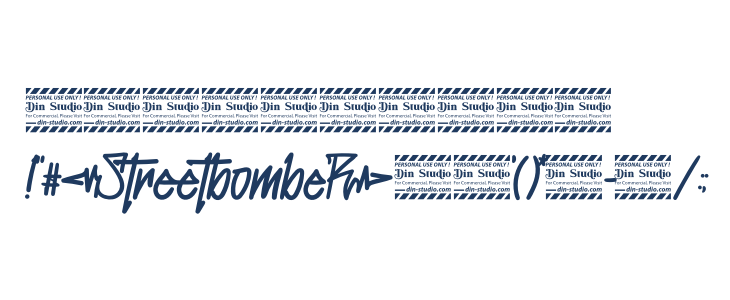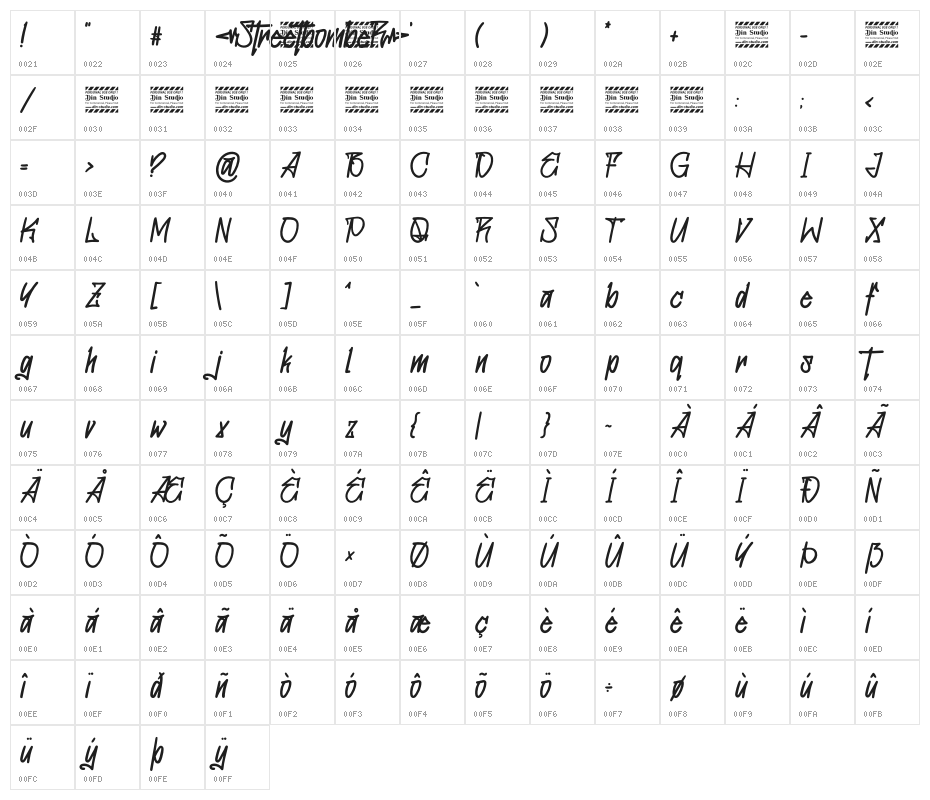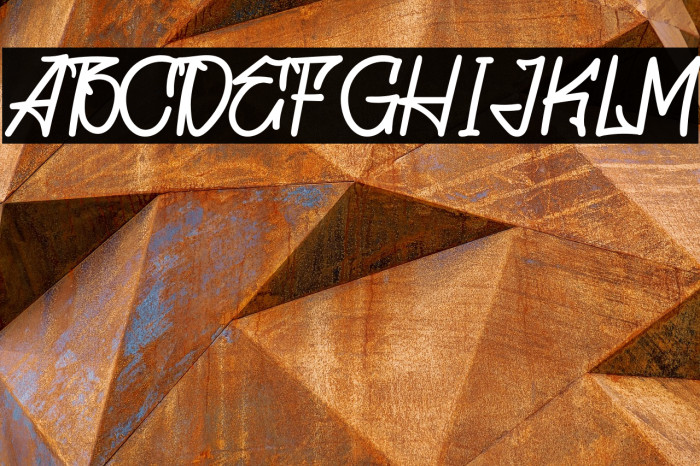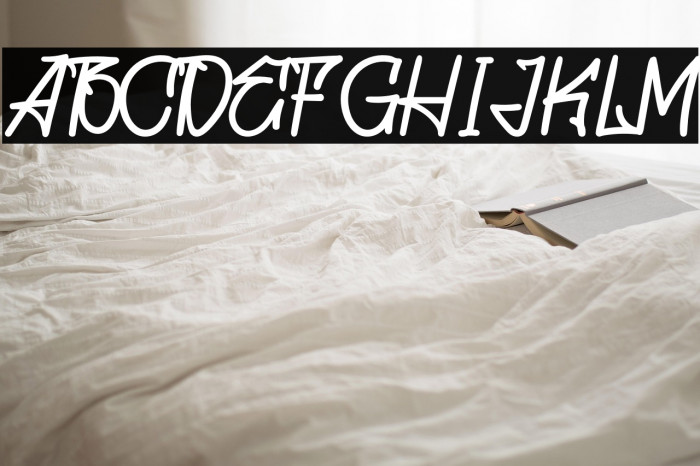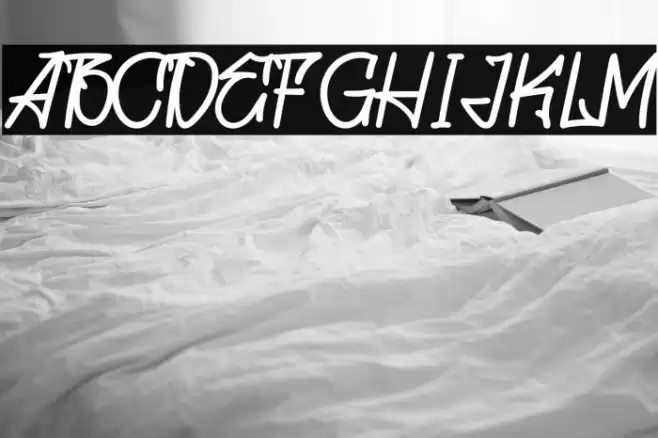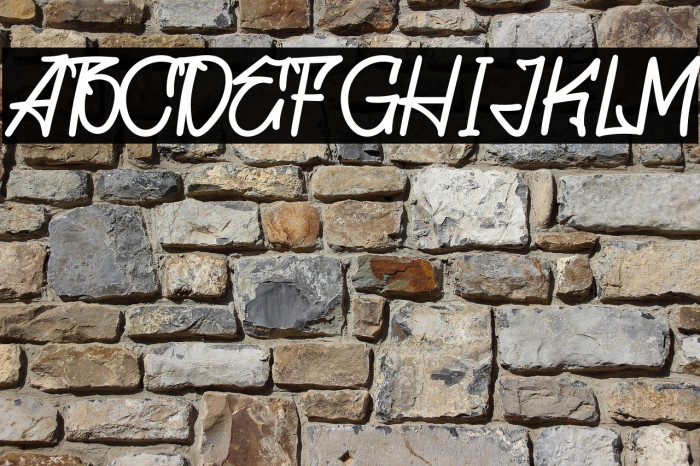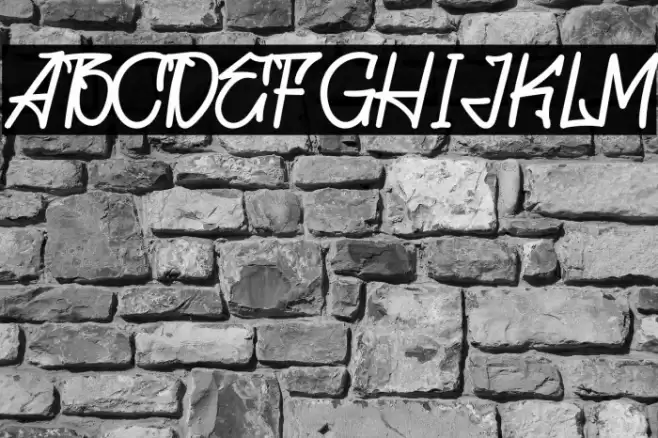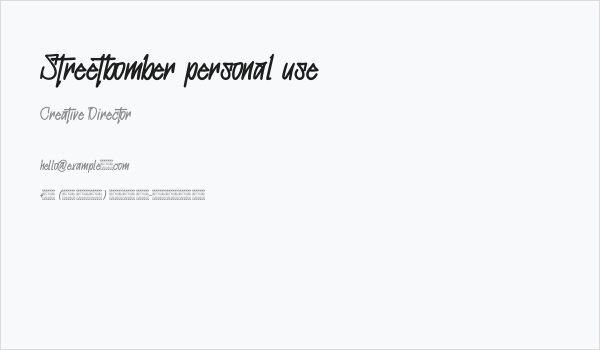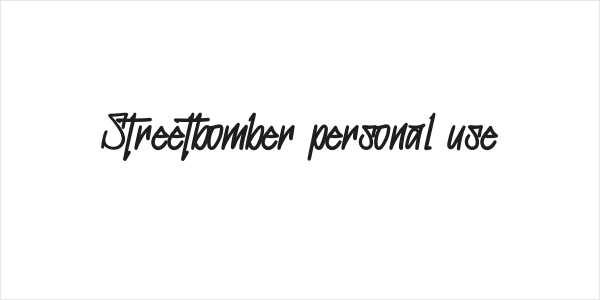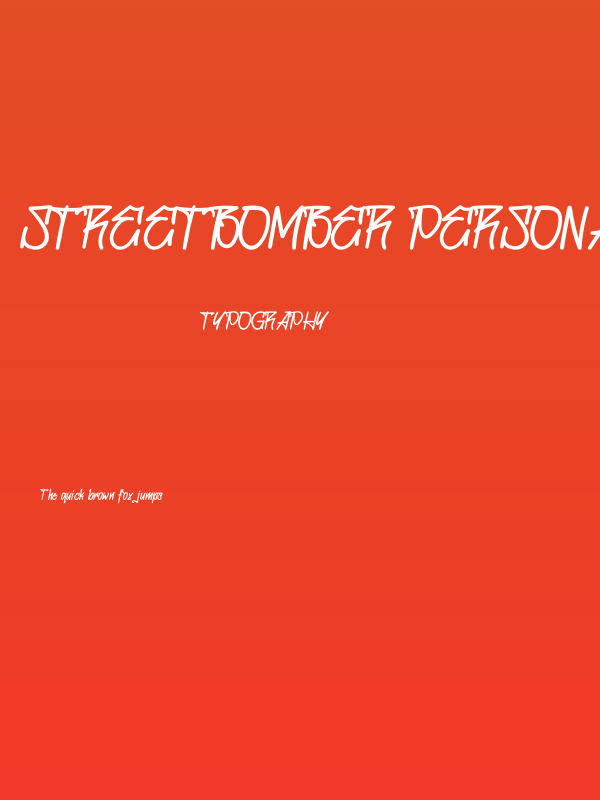
Streetbomber personal use Font
Streetbomber personal use Description
This font features a bold, graffiti-inspired style with sharp, angular lines and a dynamic flow. The uppercase letters are tall and narrow, with exaggerated curves and pointed edges, giving them a striking appearance. The lowercase letters maintain a similar aesthetic, with a slightly more relaxed form, yet still retaining the edgy, urban feel. The numbers and special characters are consistent with the overall theme, adding a cohesive look to the set. This font is designed to capture attention and convey a sense of rebelliousness and creativity.
| Overall Style | Urban, Edgy, Creative |
| Use Case | Logos, Posters, Headlines |
| Proposed Projects | Ideal for street art designs, urban-themed posters, edgy branding, and creative projects that require a bold statement. |